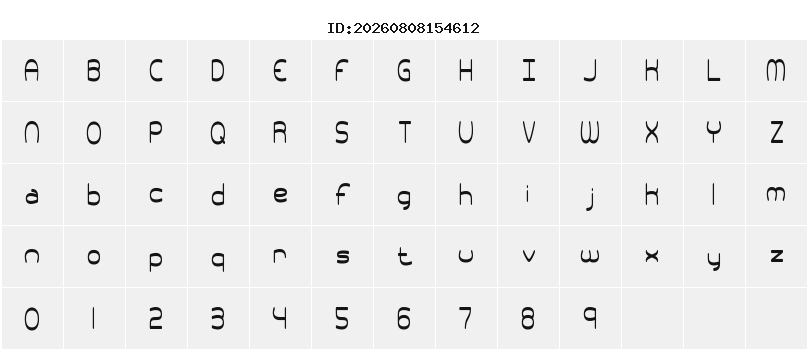
• Font Name: Pneumatics Tall BRK
About Pneumatics Tall BRK.ttf
Pneumatics Tall BRK.ttf is a modern, elegant sans-serif font designed for ultimate readability and visual harmony. Perfect for branding, headlines, web design, and print materials.